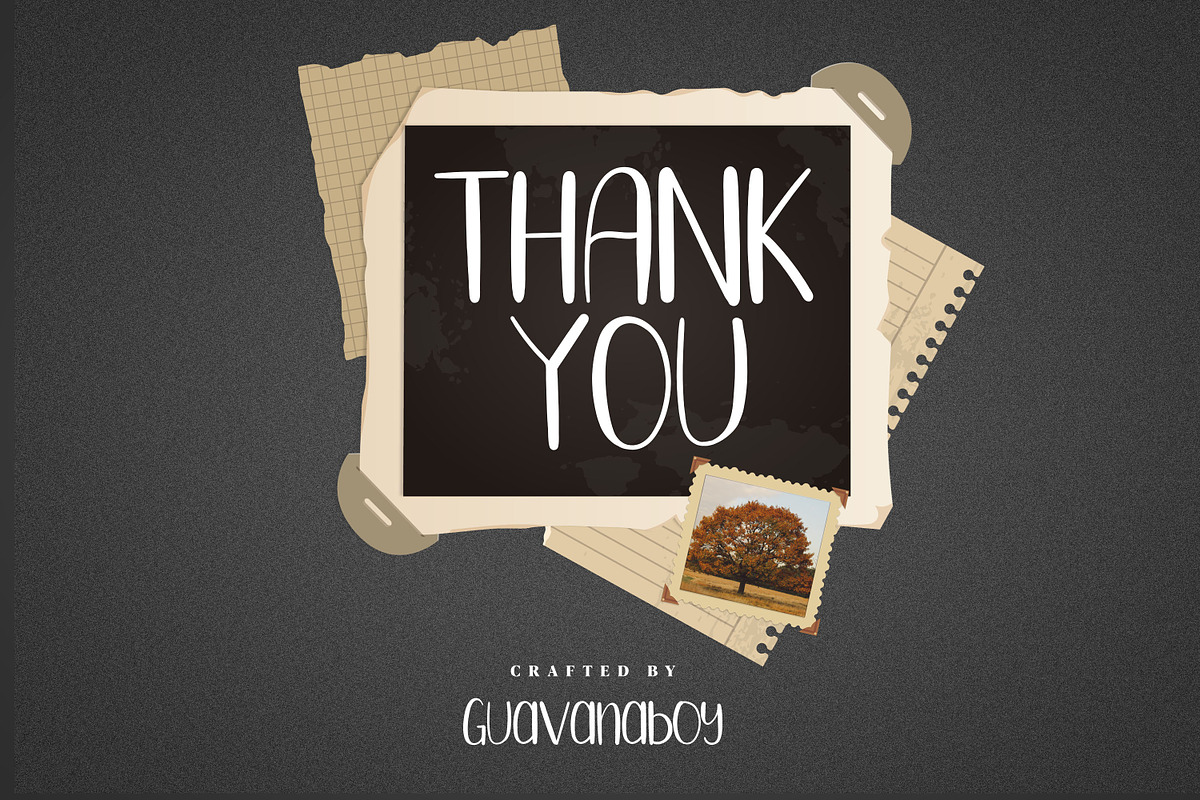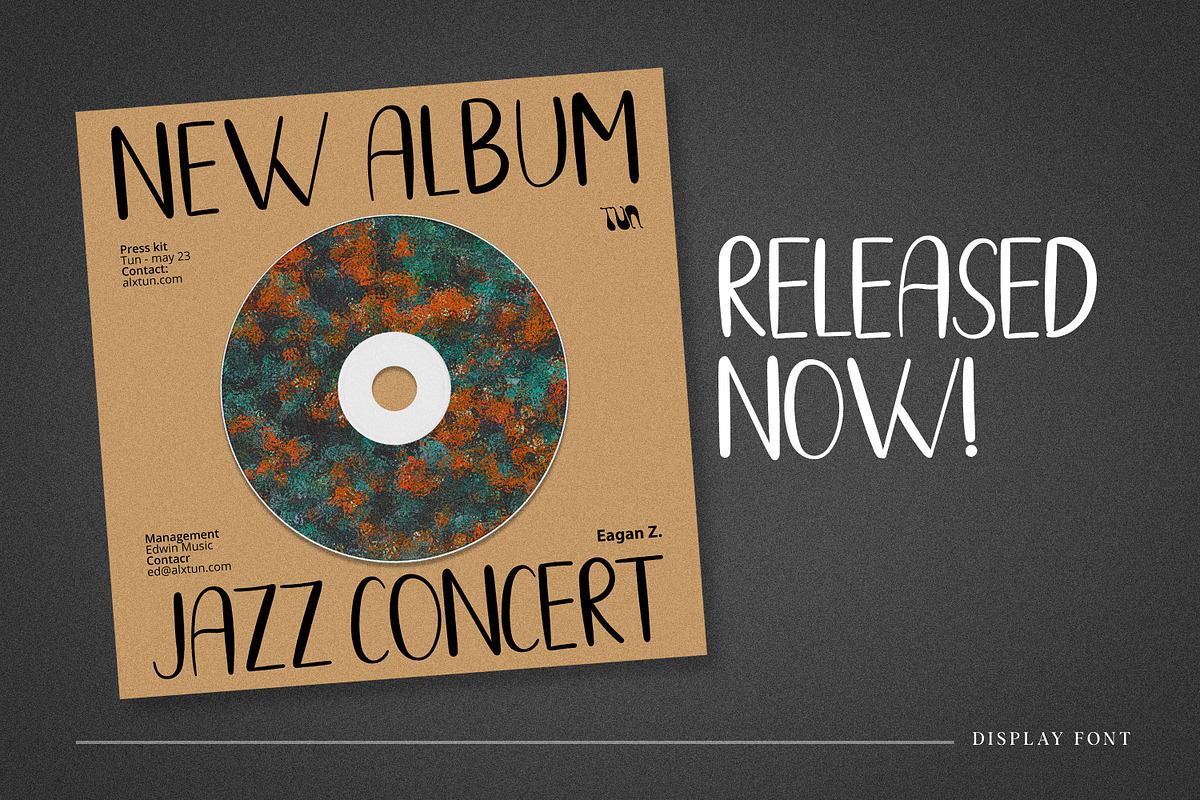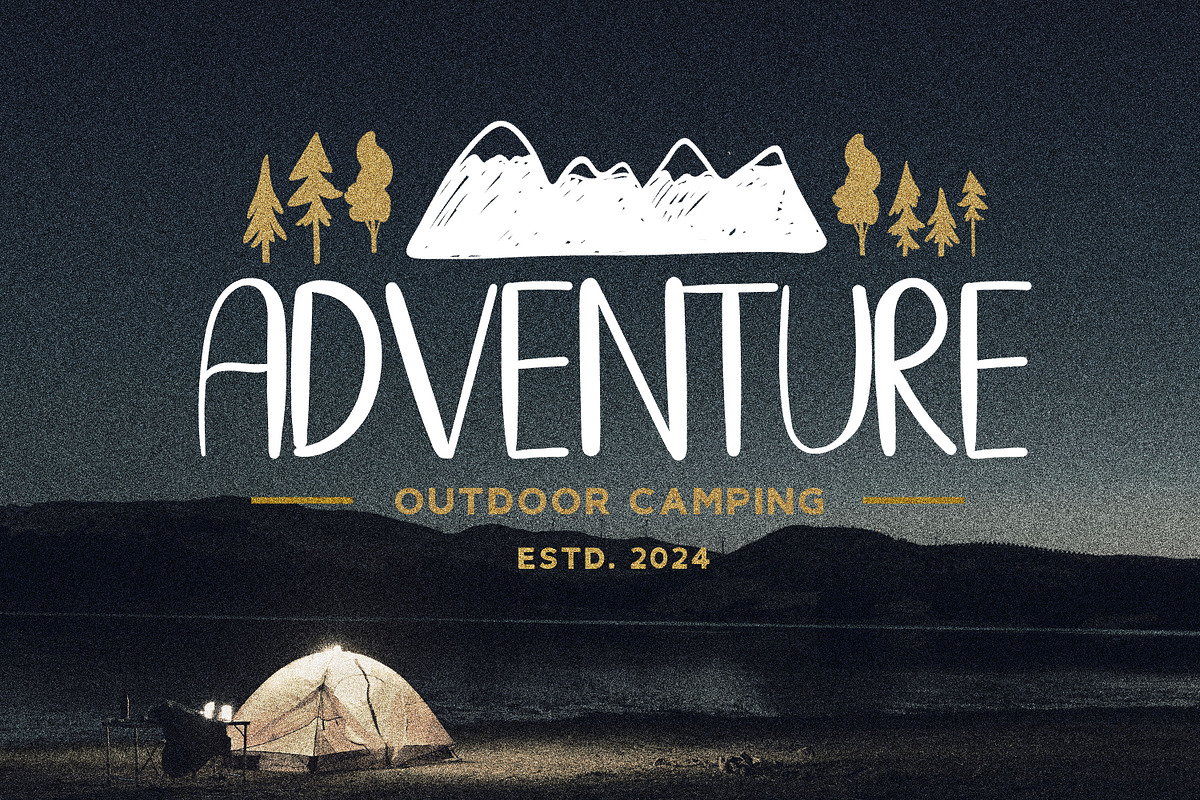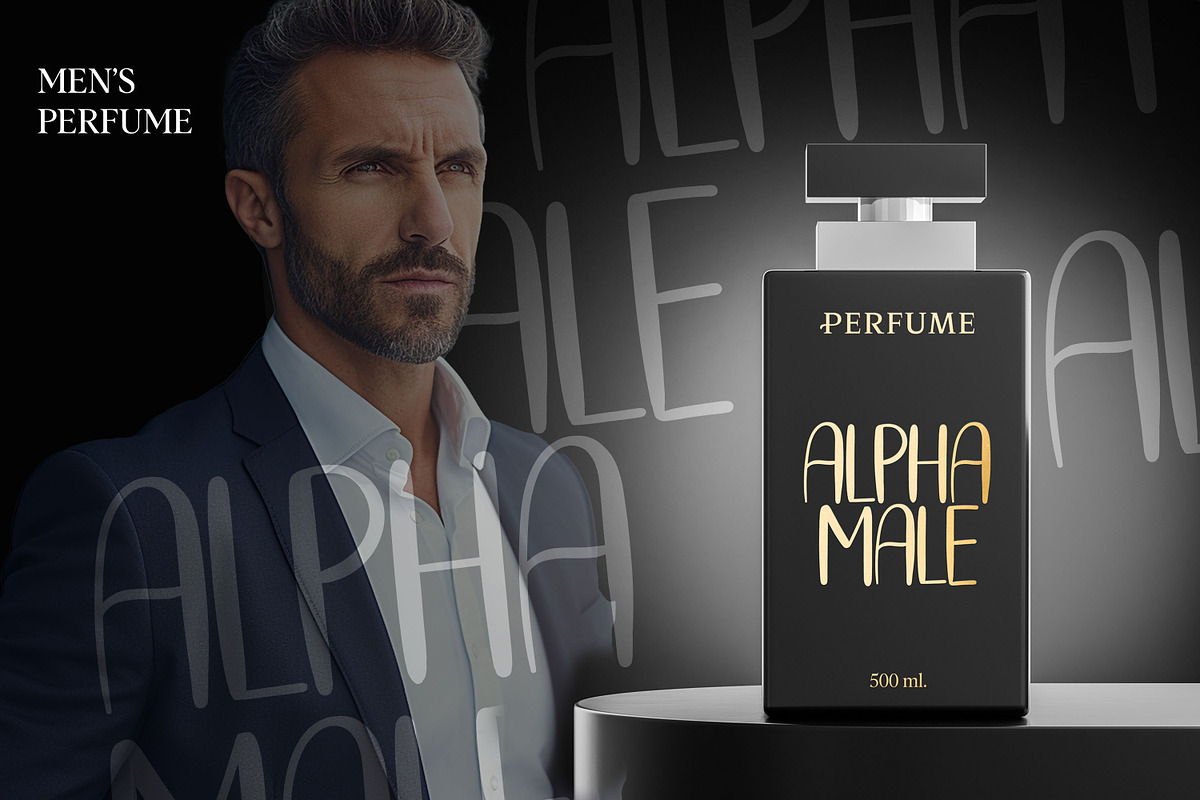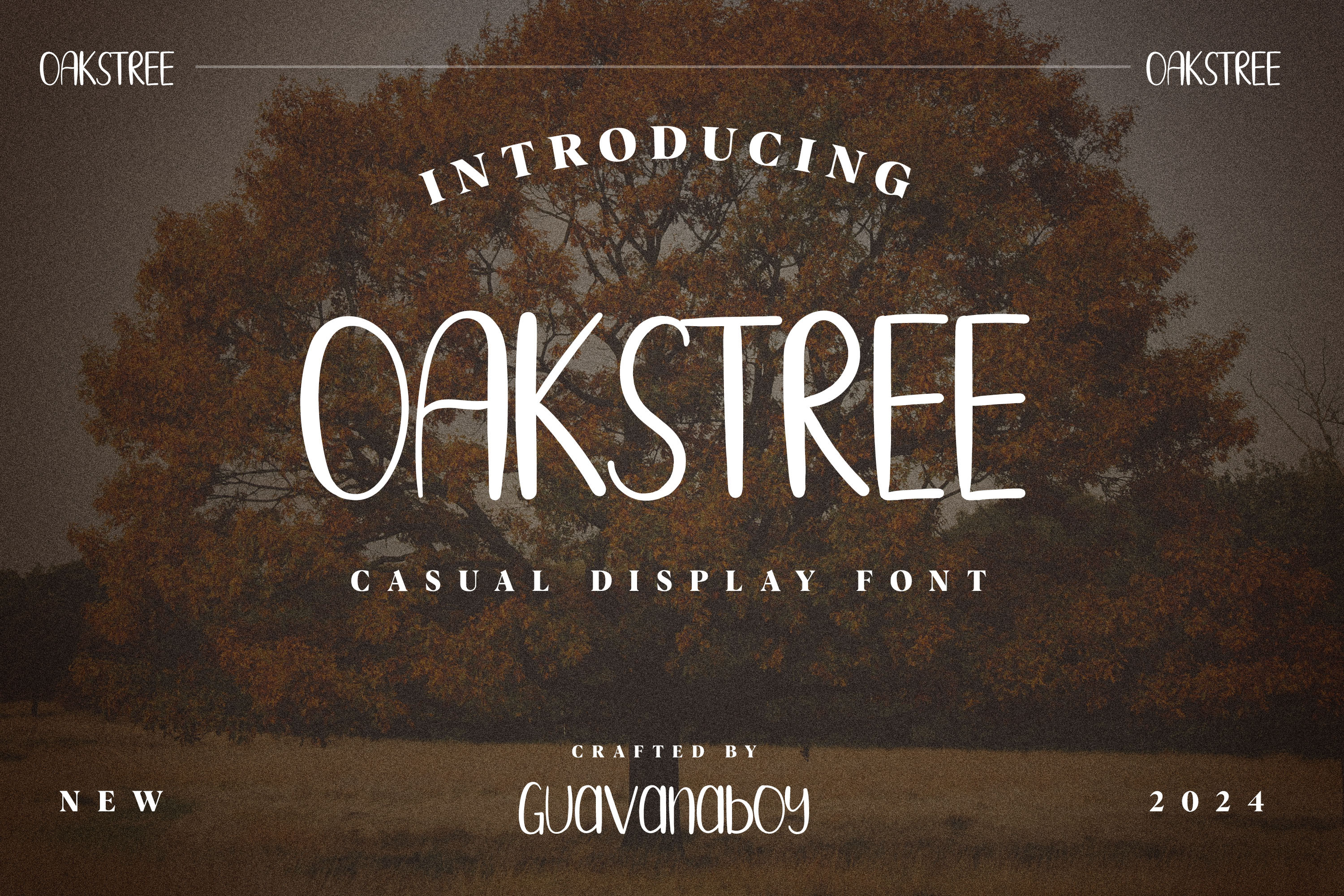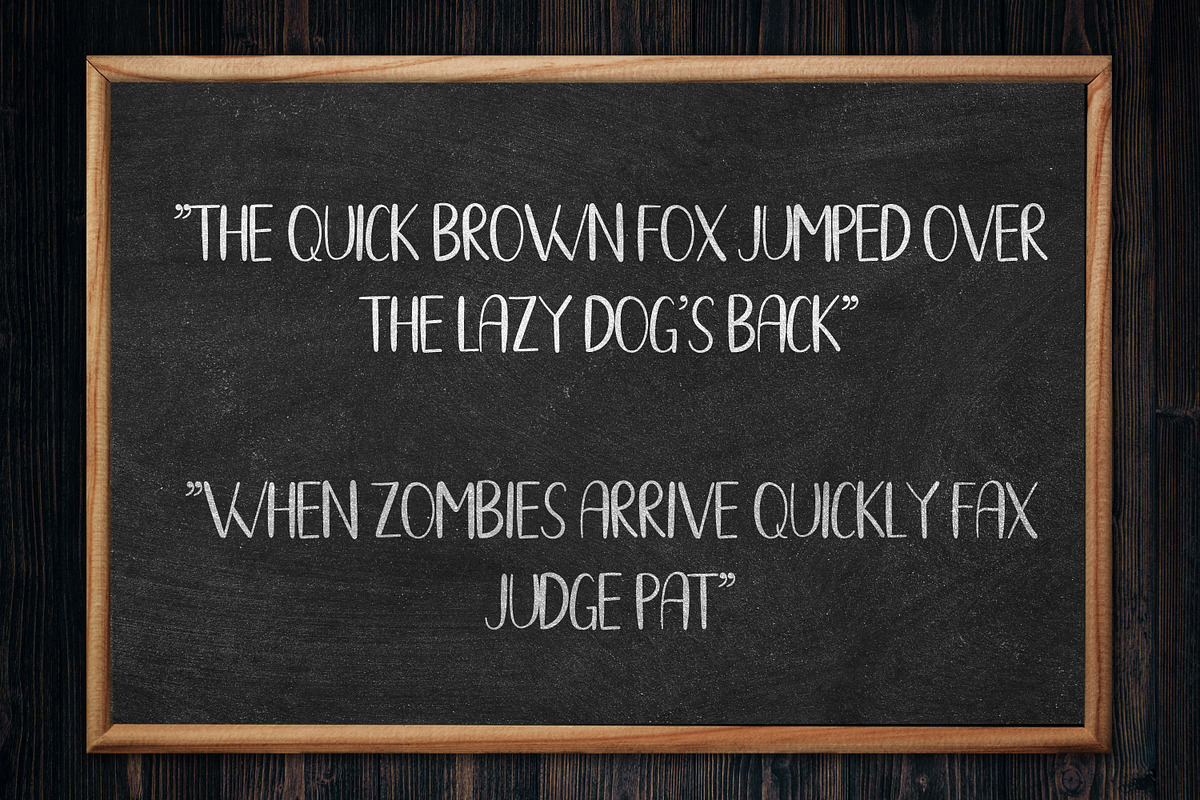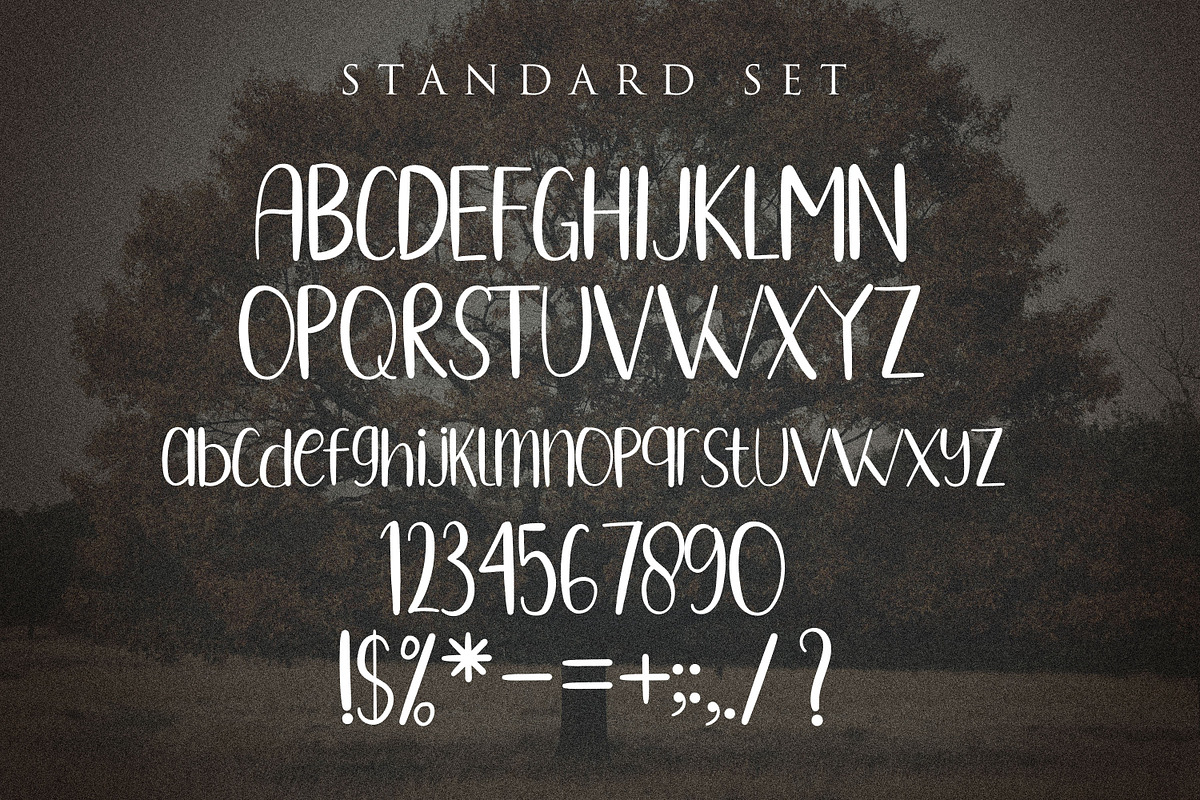
OAKSTREE - Casual Brush Display Font
OAKSTREE Font - A Casual Display font - by Guavanaboy.
Perfect for : Social media, Advertisement, Instagram, Logos, branding, wedding invitations, Canva, signs, crafting, mugs, shirts, labels, stickers, business cards, greeting cards, posters, social media, planner prints, and websites.